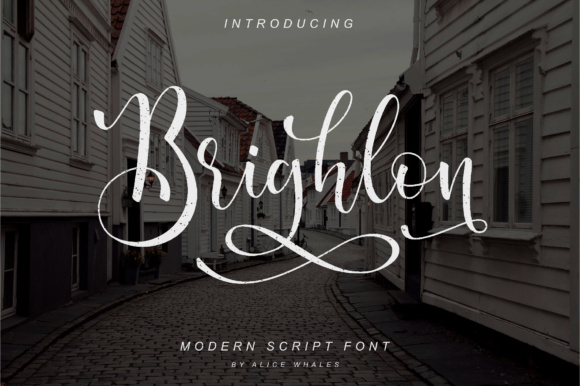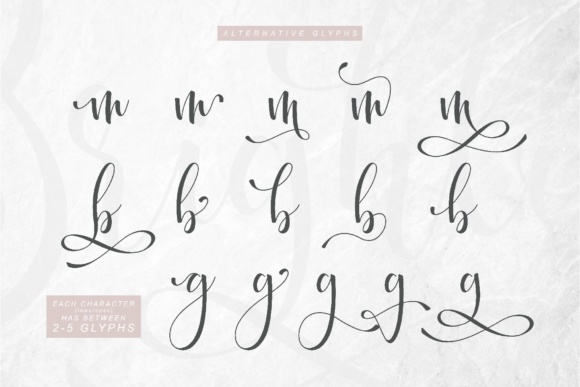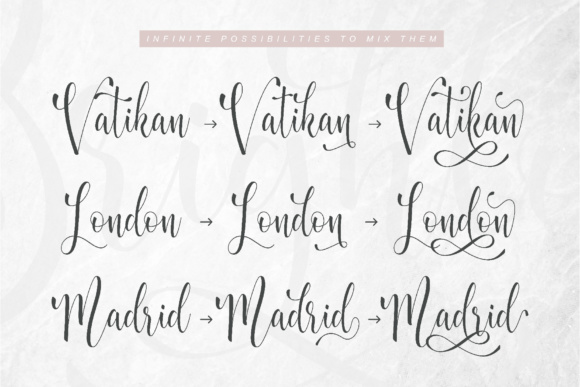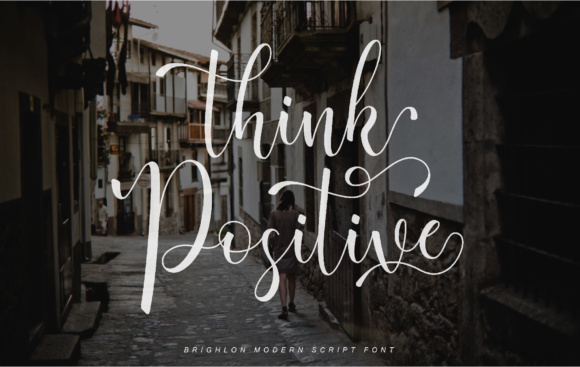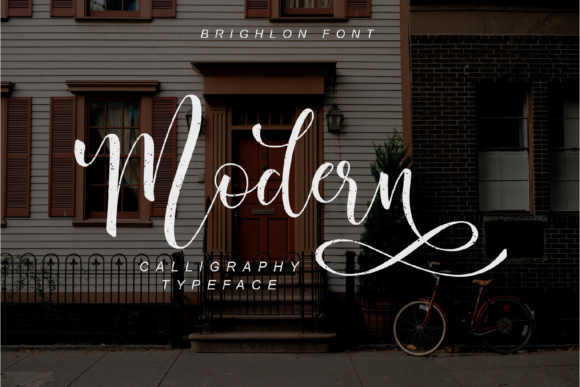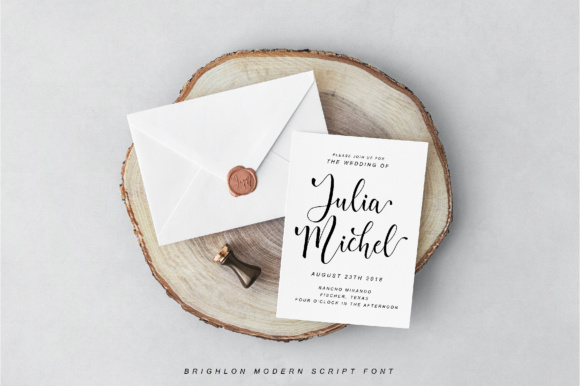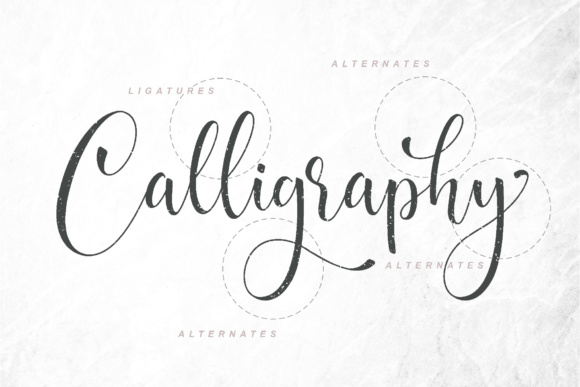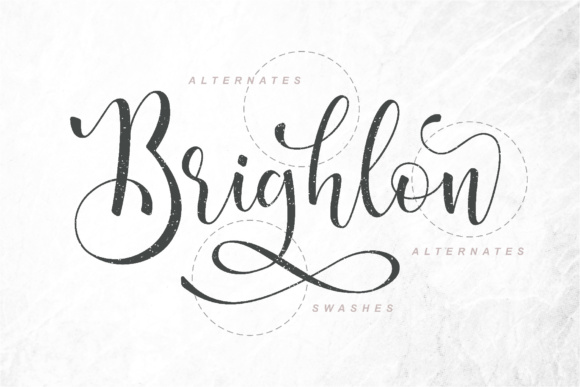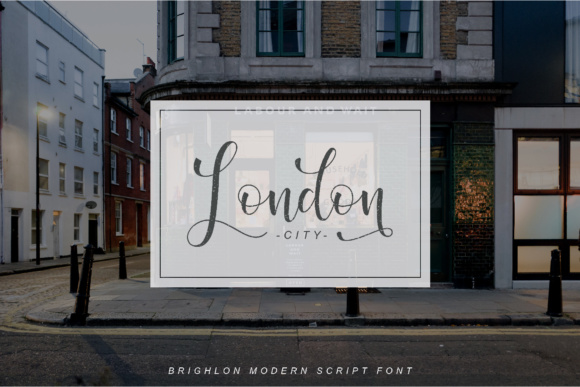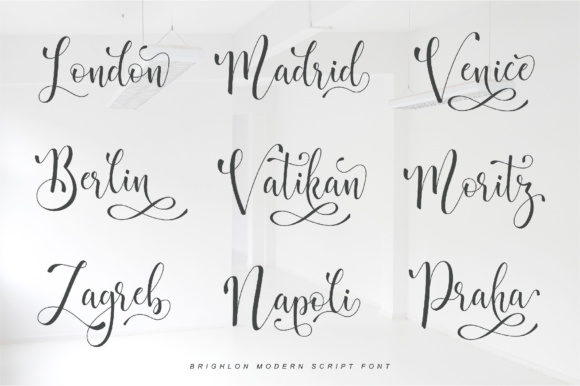
Brighlon Font
Brighlon is a fabulously fun, yet elegant script font with tons of energy, allowing you to create beautiful hand-made typography in an instant. With extra bouncy curves & loops, the Brighlon Script is guaranteed to make your text stand out – perfect for logos, printed quotes, invitations, cards, product packaging, headers and whatever your imagination holds.